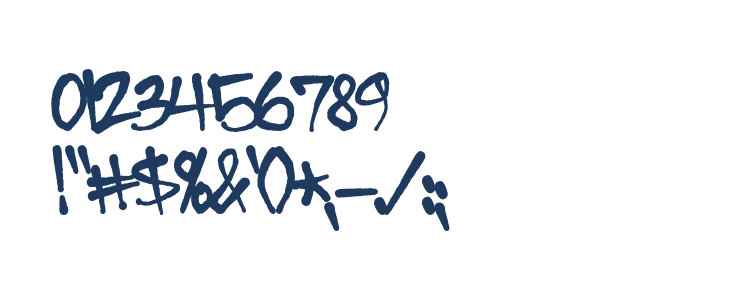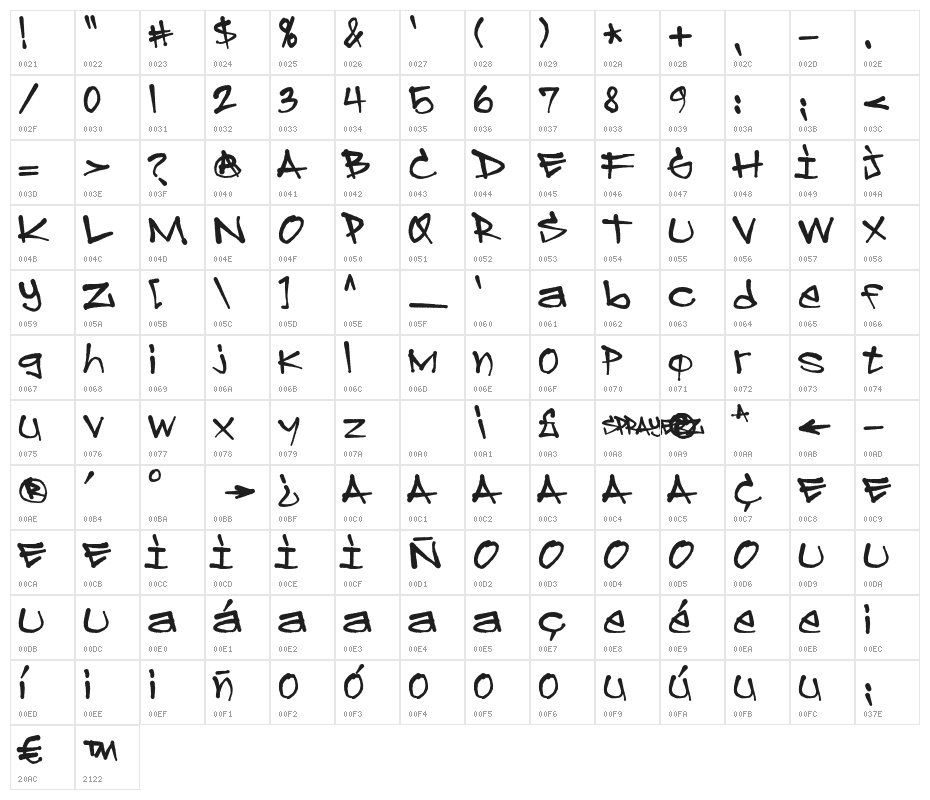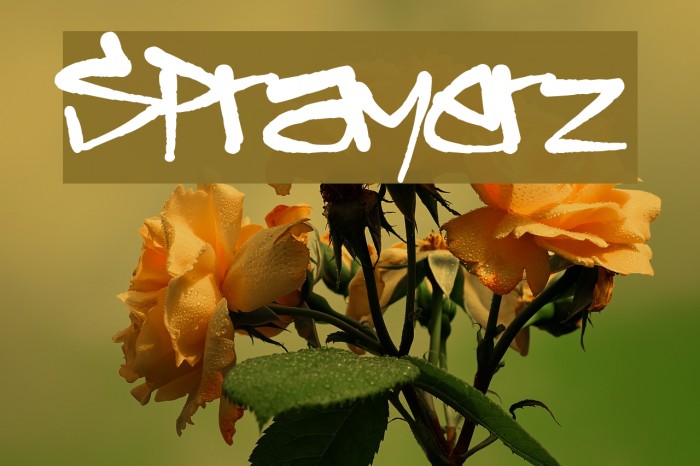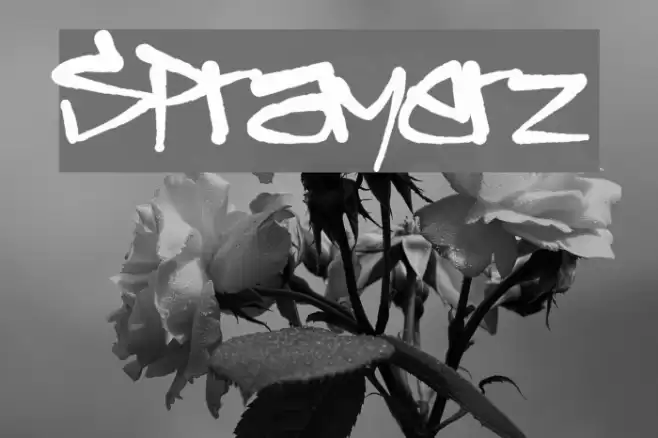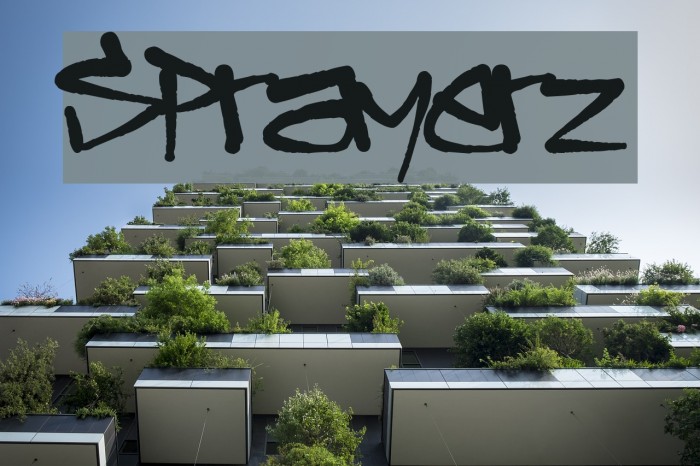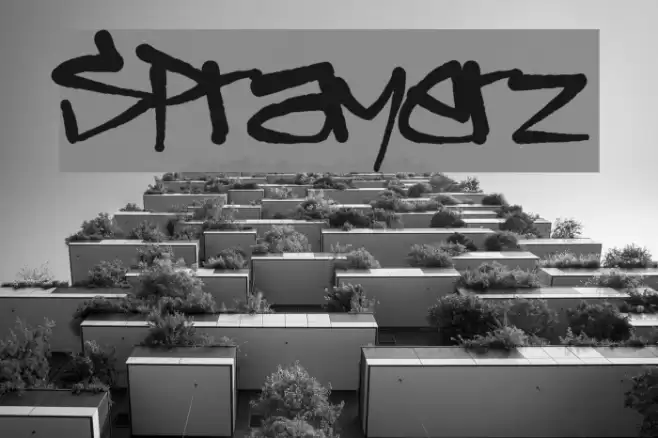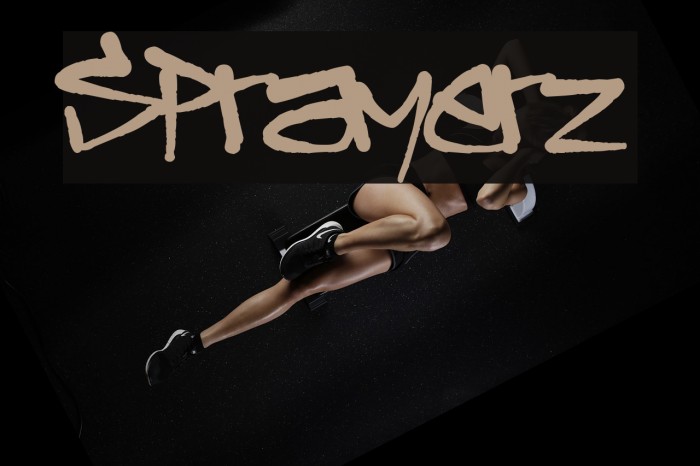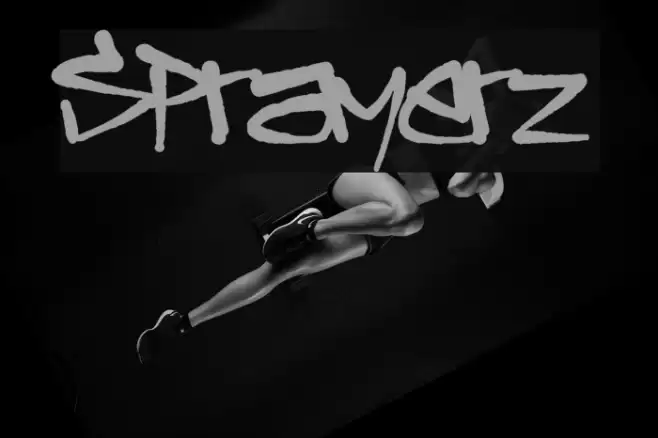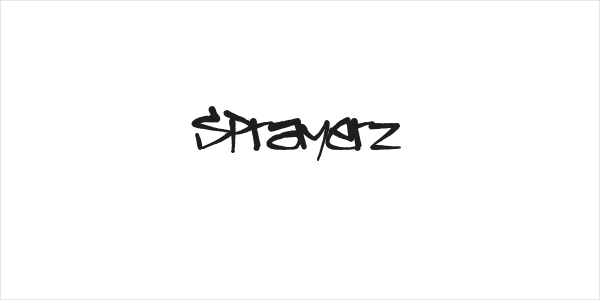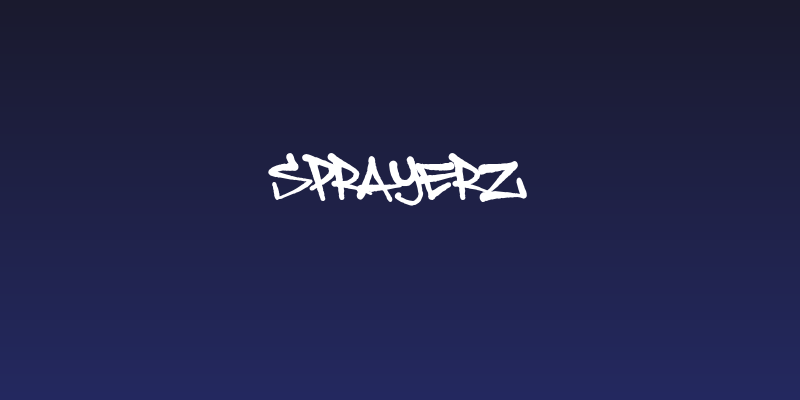
Sprayerz Font
Sprayerz Description
This font exudes a bold, urban graffiti style, characterized by its dynamic and energetic strokes. The letters are irregular and spontaneous, capturing the essence of street art with a raw and expressive flair. The uppercase and lowercase letters maintain a consistent aesthetic, with exaggerated curves and angles that suggest movement and creativity. The numbers and special characters follow suit, adding to the cohesive, rebellious feel of the typeface. This font is perfect for projects that aim to convey a sense of edginess and modernity, appealing to a youthful and artistic audience.
| Overall Style | Modern, Urban, Graffiti |
| Use Case | Logos, Posters, Album Covers |
| Proposed Projects | Ideal for street art projects, urban-themed posters, music album covers, and edgy branding. |